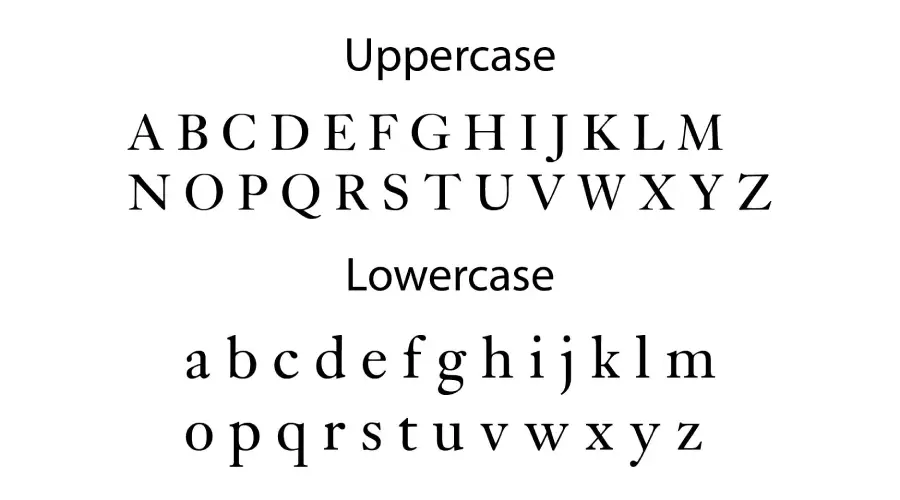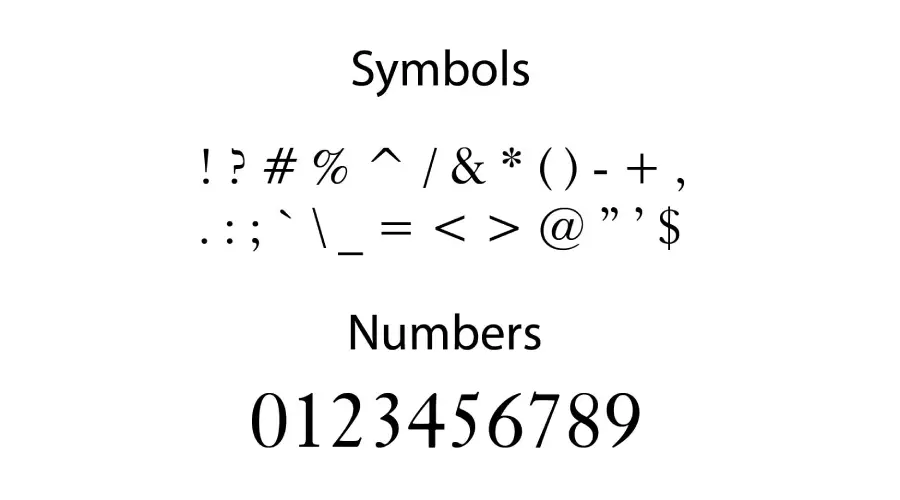
Kis Typeface
Kis Typeface is based on the work of Miklós Kis, a Hungarian typographer and printer who lived in the 17th century. His full name is Miklós Tótfalusi Kis, but he is called Nicholas Kis in English. In today’s article, we will talk about the history and features of the Kis Typeface, its effectiveness, and how to use our Kis Font Generator.
Where Did Kis Typeface Come From?
Miklos Kis was a Hungarian punchcutter, type designer, typographer, and printer. He was born in Misztótfalu, Hungary, in 1650 and died in Kolozsvár in 1702. During the 1670s and 1680s, he traveled to European cities, such as Paris, London, and Berlin. He sold his types and learned from other masters in these cities until he settled in Amsterdam during the Dutch Golden Age. As a result of his work with renowned typographers and designers, he honed his skills and knowledge. After learning from them, he returned to Hungary.
Nicholas Kis left for Amsterdam and worked on various notable projects, including la Biblia Hungara (1685) and the New Testament (1687). He designed the Kis typeface in the late 17th century, but there is no specific date recorded. It is believed that the font was first published in 1690.
Design Features of Kis Typeface
After Nicholas Kis’s death, many designers updated and published this font. So, now the typeface has two versions: Kis BT and Kis PT. Nicholas (Miklós) Tótfalusi Kis created Kis BT, and Kis PT is also known as Janson. Janson is a serif font based on an original face cut by Kis in 1670-90. Chauncey H. Griffith designed it in 1937 for Linotype. The font is named after Anton Janson, a Dutchman who worked in Leipzig but has no connection to the font. Janson is used for text setting and is known for its readability and elegance.
A Cyrillic version of the Janson font was developed at ParaType in 1999 by Vladimir Yefimov. This font version supports Russian, Ukrainian, and Belarusian languages.
Kis Typeface is known for its large body size, relatively small lowercase letters, and uppercase solid letters with clearly defined stroke widths. It is less elegant than the Garamond font, but its expression is unique and full of tension. Also remember it isn’t a free font. So you must purchase a license to buy it.
Kis typeface, a masterpiece by Miklós Tótfalusi Kis, remains a timeless classic in typography. Its unique characteristics and versatile design make it a valuable font for various projects. Whether you are a seasoned designer or a typography enthusiast, exploring and experimenting with the Kis typeface can open up new possibilities in design.